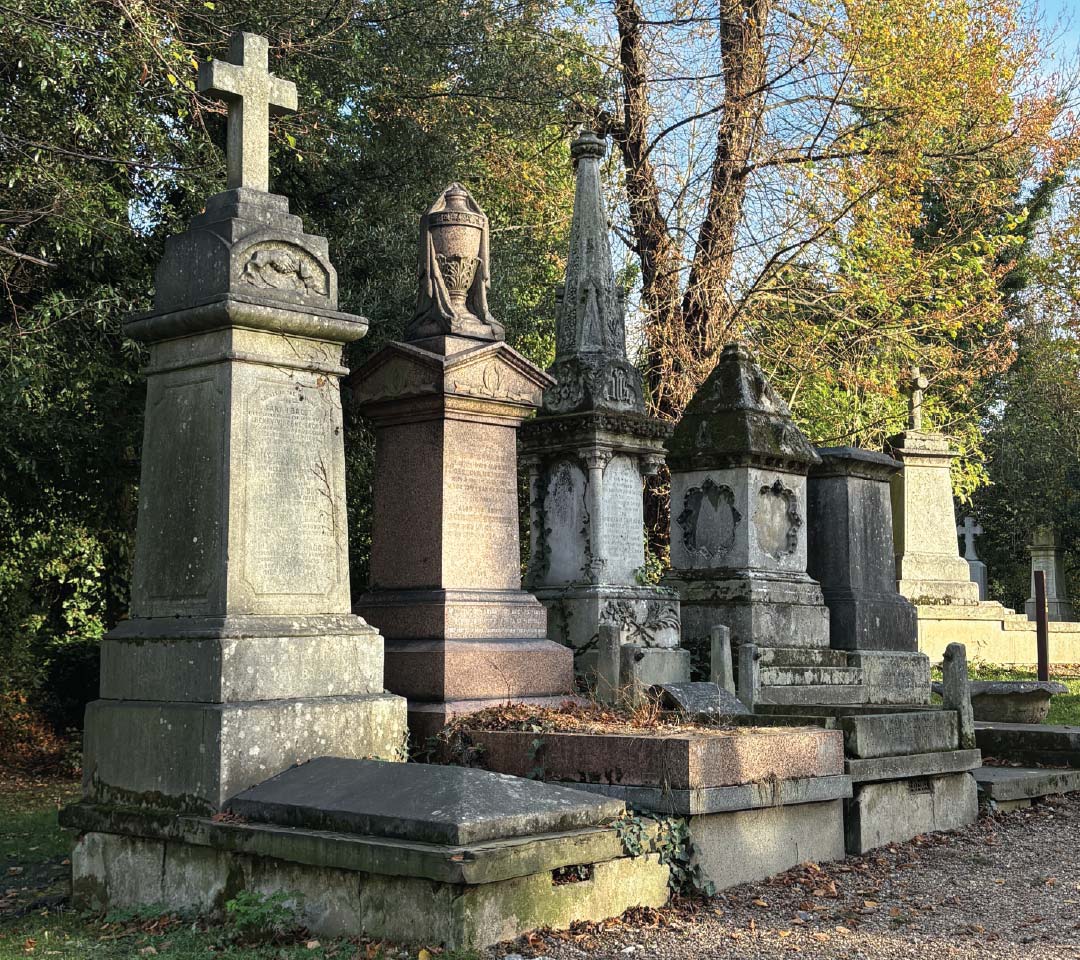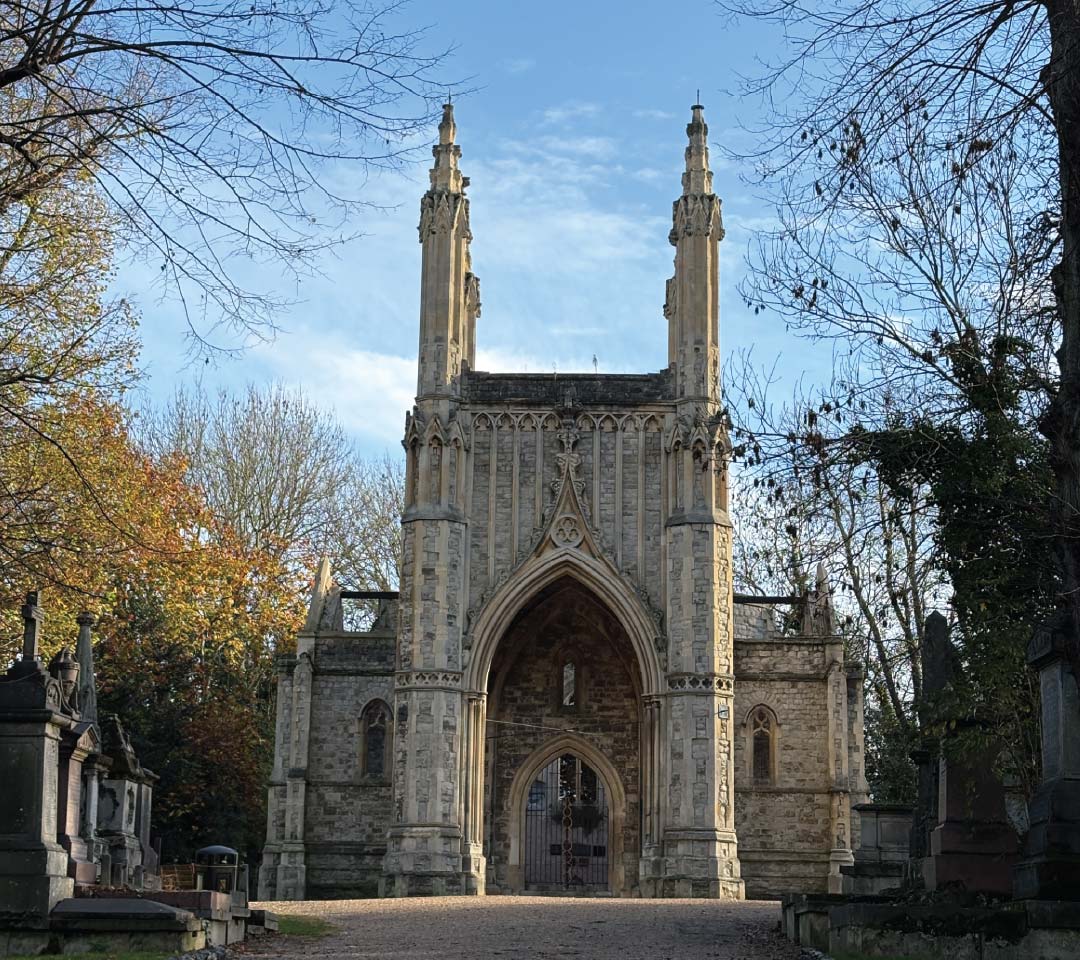
Transience is a font which attempts to communicate the feeling of Nunhead Cemetery as a liminal space: a quiet cemetery in the middle of the loud city of London. Blocks are used in the font which relate to the shape of gravestones, and gradually become smaller from top to bottom in each letter to create a fading away effect. This font was made to represent the stillness and reflection you would witness in the cemetery. The shape of the letters takes inspiration from other Victorian fonts to bring that important historical aspect of Nunhead Cemetery into the font.